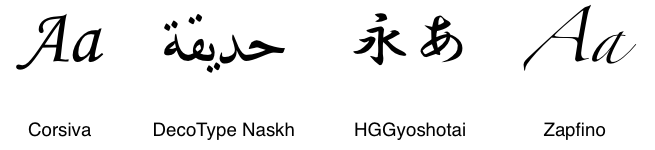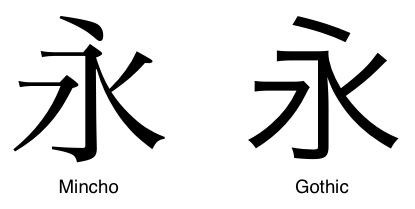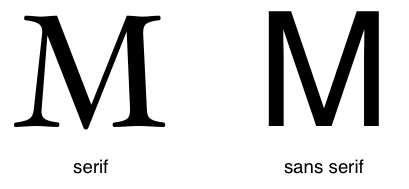
This CSS3 module describes how font properties are specified and how font resources are loaded dynamically. The contents of this specification are a consolidation of content previously divided into CSS3 Fonts and CSS3 Web Fonts modules.
A font provides a resource containing the visual representation of characters. At the simplest level it contains information that maps character codes to shapes (called glyphs) that represent these characters. Fonts sharing a common design style are commonly grouped into font families classified by a set of standard font properties. Within a family, the shape displayed for a given character can vary by stroke weight, slant or relative width, among others. An individual font face is described by a unique combination of these properties. For a given range of text, CSS font properties are used to select a font family and a specific font face within that family to be used when rendering that text. As a simple example, to use the bold form of Helvetica one could use:
Font resources may be installed locally on the system on which a user agent is running or downloadable. For local font resources descriptive information can be obtained directly from the font resource. For downloadable font resources (sometimes referred to as web fonts), the descriptive information is included with the reference to the font resource.
Families of fonts typically don't contain a single face for each possible variation of font properties. The CSS font selection mechanism describes how to match a given set of CSS font properties to a single font face.
Typographic traditions vary across the globe, so there is no unique way to classify all fonts across languages and cultures. For even common Latin letters, wide variations are possible:
One character, many glyph variations
Differences in the anatomy of letterforms is one way to distinguish fonts. For Latin fonts, flourishes at the ends of a character's main strokes, or serifs, can distinguish a font from those without. Similar comparisons exist in non-Latin fonts between fonts with tapered strokes and those using primarily uniform strokes:
Letterforms with and without serifs
Similar groupings for Japanese typefaces
Fonts contain letterforms and the data needed to map characters to these letterforms. Often this may be a simple one-to-one mapping, but more complex mappings are also possible. The use of combining diacritic marks creates many variations for an underlying letterform:
Variations with diacritic marks
A sequence of characters can be represented by a single glyph known as a ligature:
Ligature example
Visual transformations based on textual context are often stylistic option in European languages. They are required to correctly render languages like Arabic, the lam and alef characters below must be combined when they exist in sequence:
Required Arabic ligature
The relative complexity of these shaping transformations requires additional data within the font.
Sets of font faces with various stylistic variations are often grouped together into font families. In the simplest case a regular face is supplemented with bold and italic faces, but much more extensive groupings are possible. Variations in the thickness of letterform strokes, the weight, and the overall proportions of the letterform, the width, are most common. In the example below, each letter uses a different font face within the Univers font family. The width used increases from top to bottom and the weight increases from left to right:
Weight and width variations within a single font family
Creating fonts that support multiple scripts is a difficult task; designers need to understand the cultural traditions surrounding the use of type in different scripts and come up with letterforms that somehow share a common theme. Many languages often share a common script and each of these languages may have noticeable stylistic differences. For example, the Arabic script is shared by Persian and Urdu and Cyrillic is used with many languages, not just Russian.
be considered as if a font was present but contained an empty character map; matching a platform
font with the same name must not occur in this case.
font-stretch’ is tried first. If the
matching set contains faces with width values matching the ‘font-stretch’ value, faces with other width
values are removed from the matching set. If there is no face that
exactly matches the width value the nearest width is used instead. If
the value of ‘font-stretch’ is ‘normal’ or one of the
condensed values, narrower width values are checked first, then wider